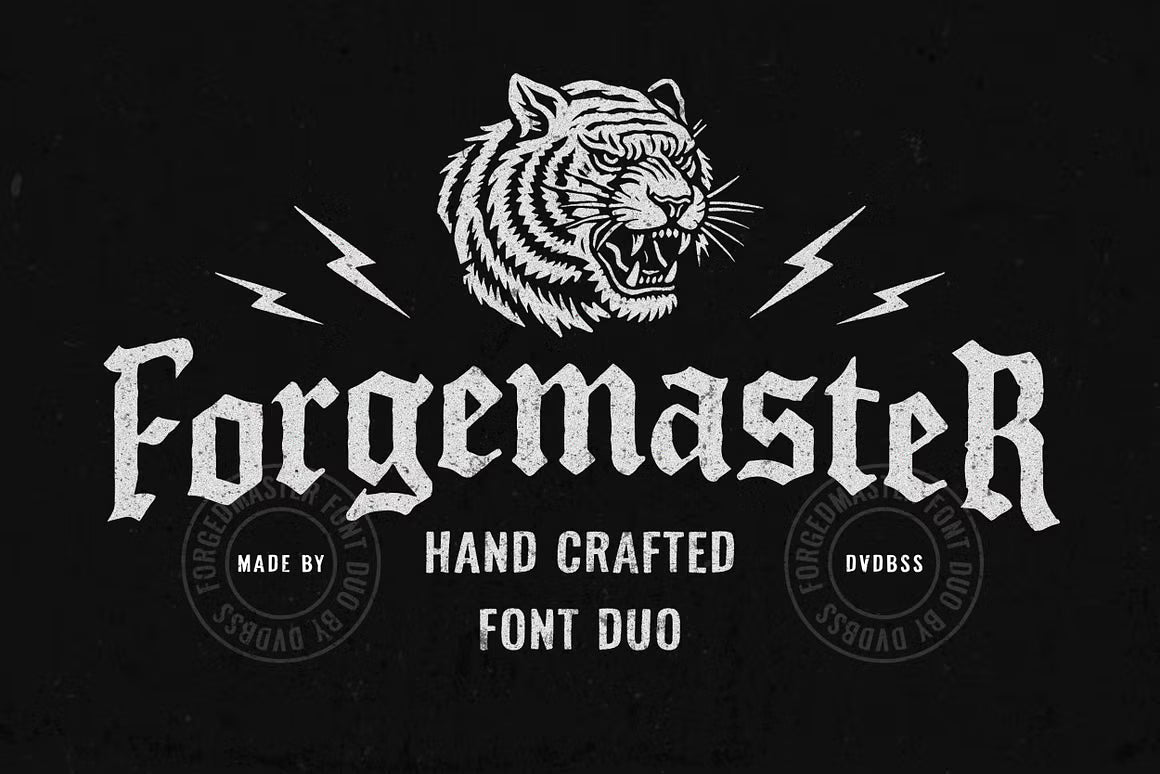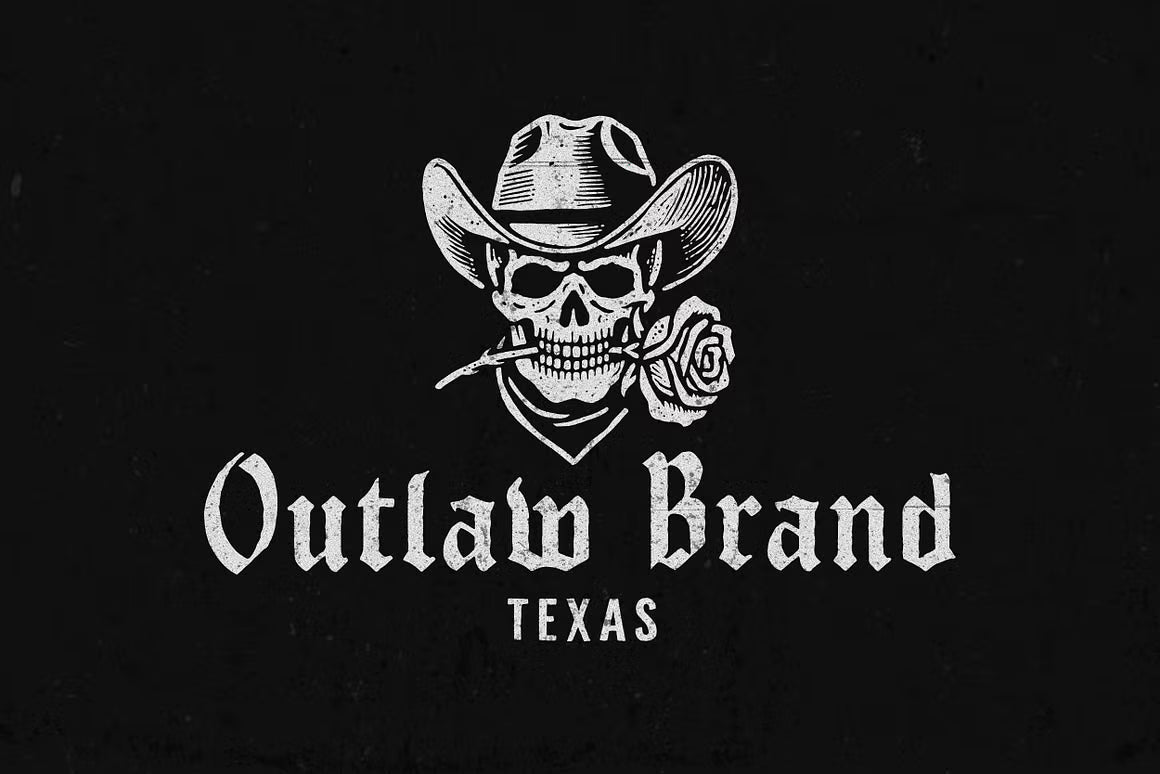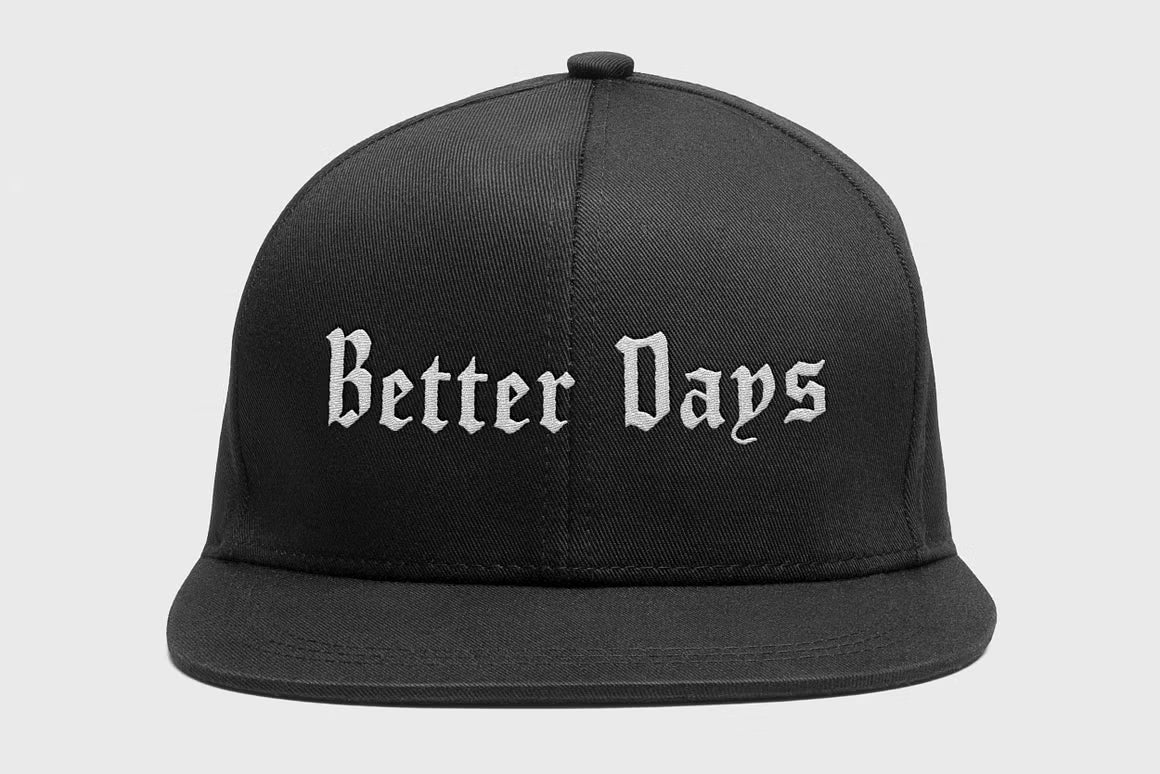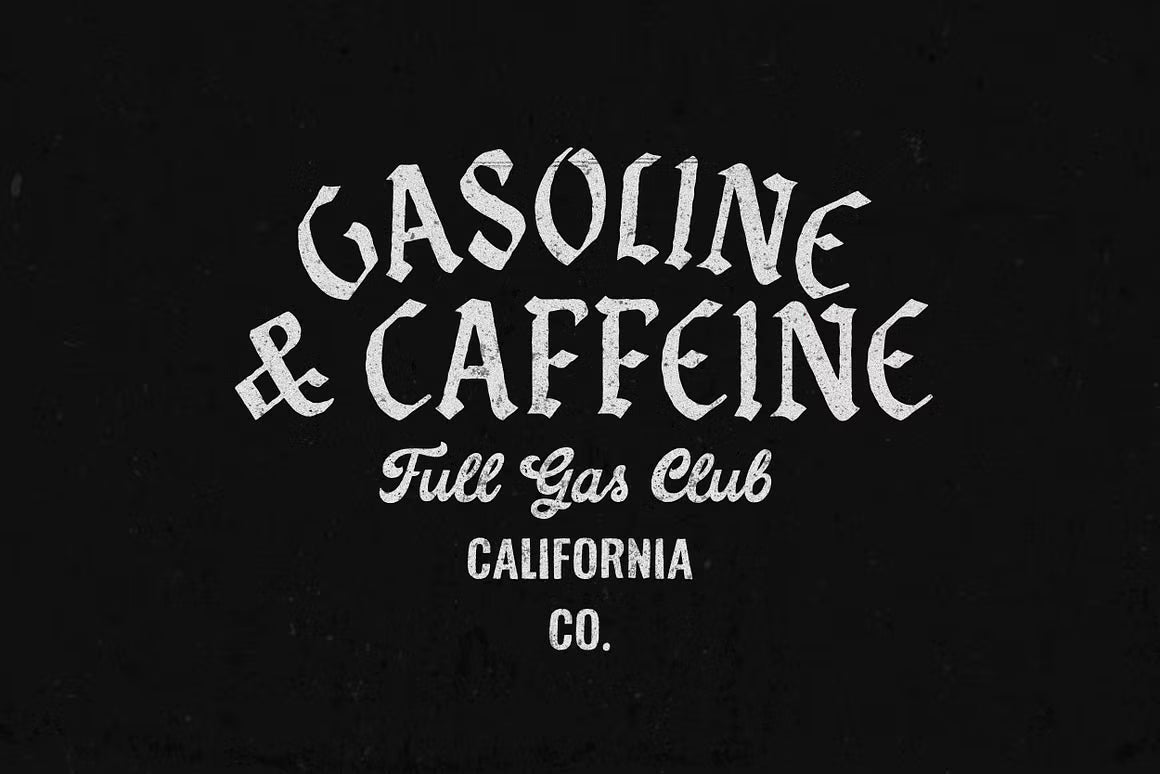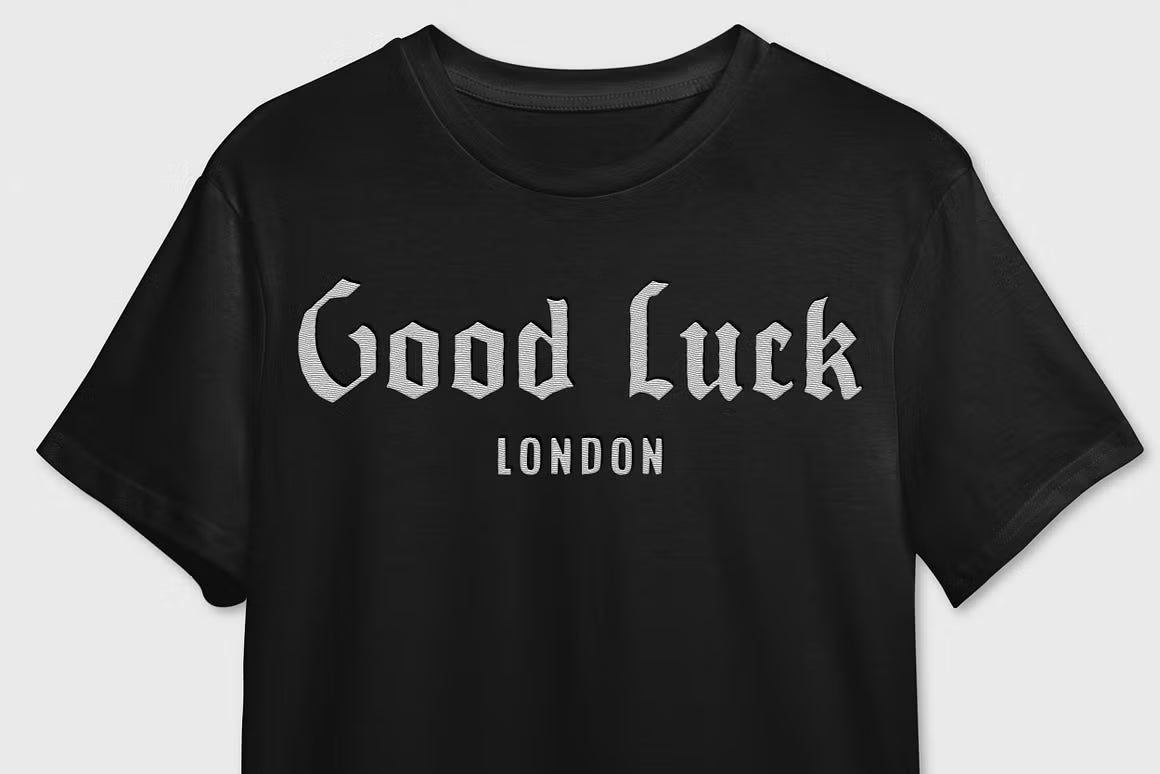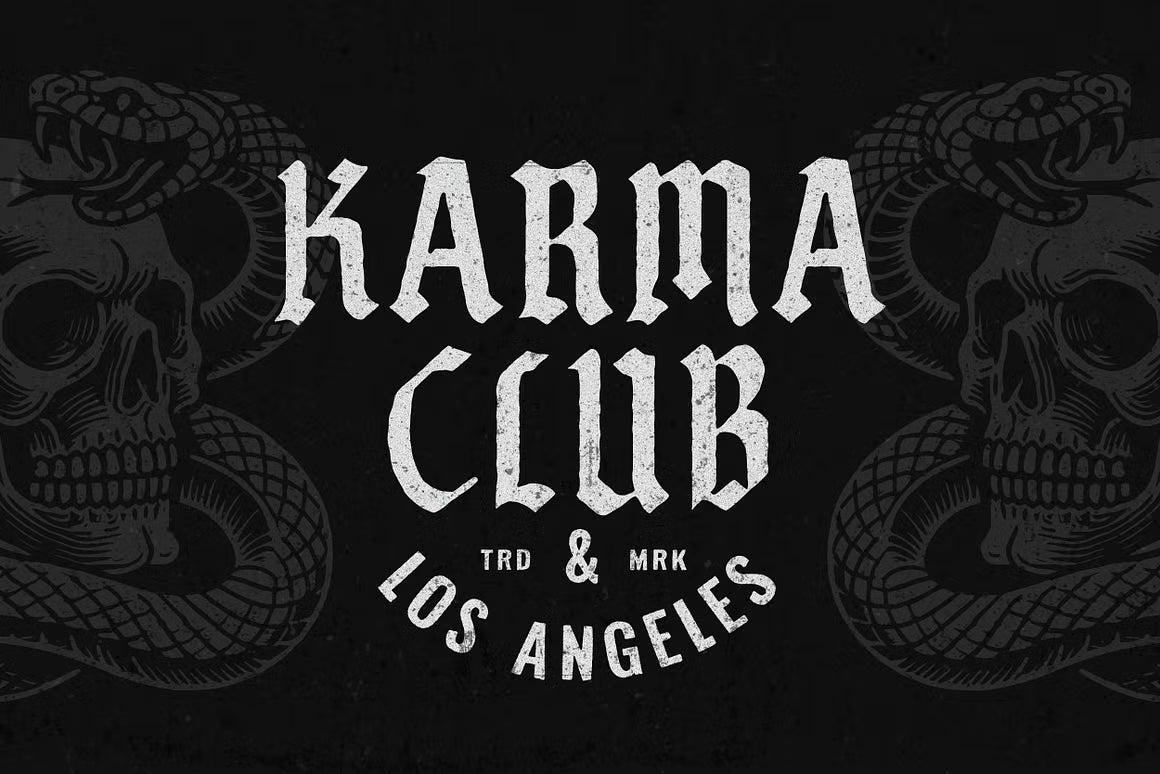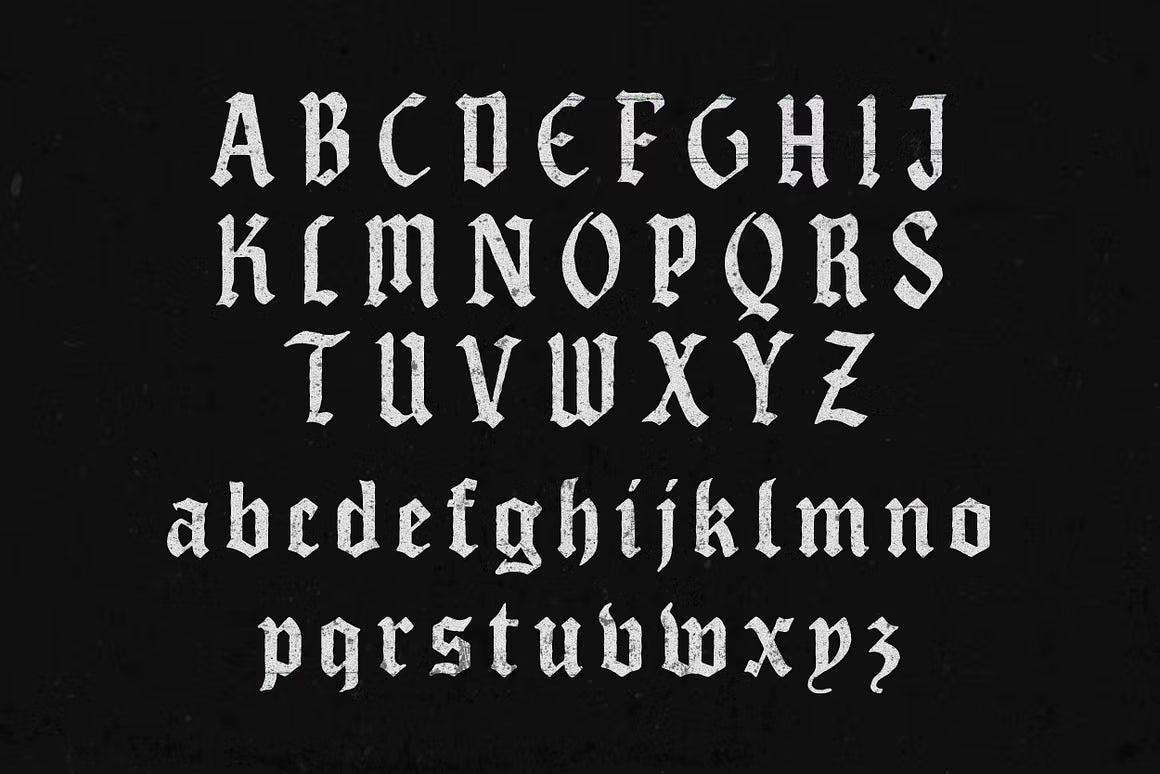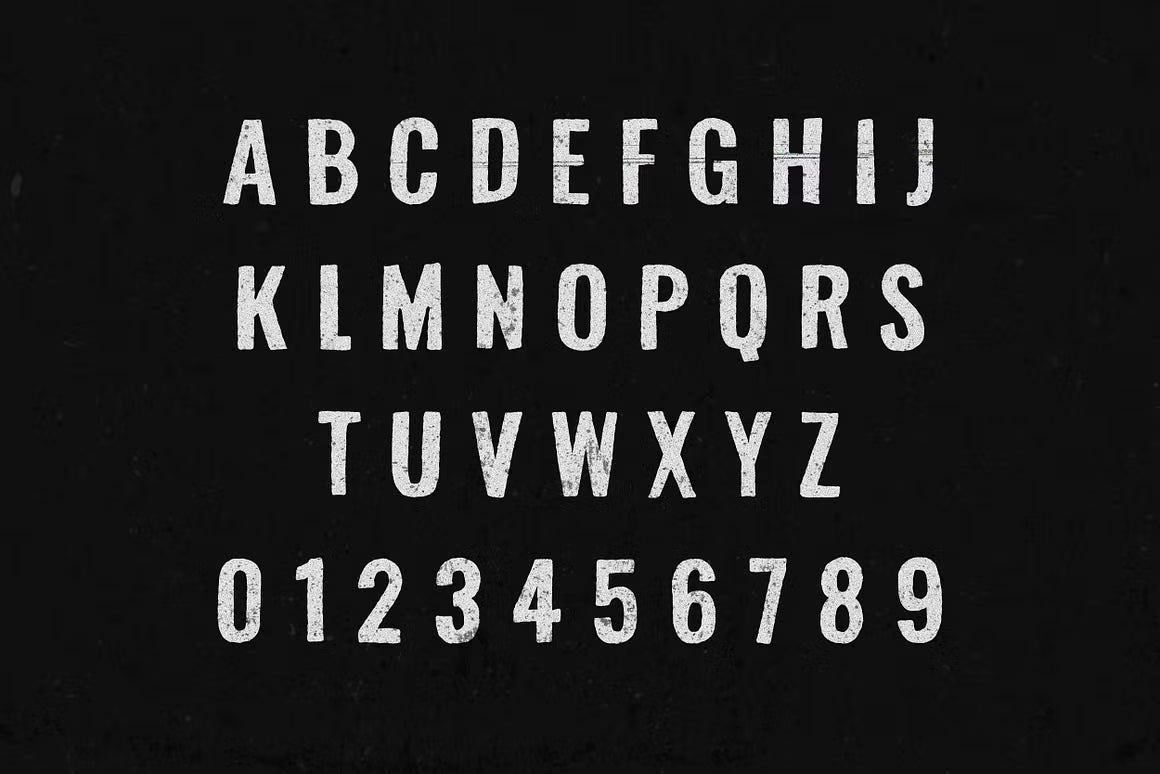
Frgmst Blackletter
Frgmst Condensed
Forgemaster Font Duo strikes hard with a powerful handcrafted Blackletter paired with a sharp condensed Sans — both dripping with raw old-school energy. Inspired by tattoo culture, biker heritage, and vintage rebellion, this duo is made for designs that refuse to be ignored.
Whether you're crafting edgy logos, heavy-hitting apparel graphics, signage, or bold branding, Forgemaster delivers that intense, authentic attitude with excellent readability and strong visual impact. It’s the kind of typeface that feels like it was forged in fire and ready for the streets.
A striking combo for anyone who loves designs with real grit and character.